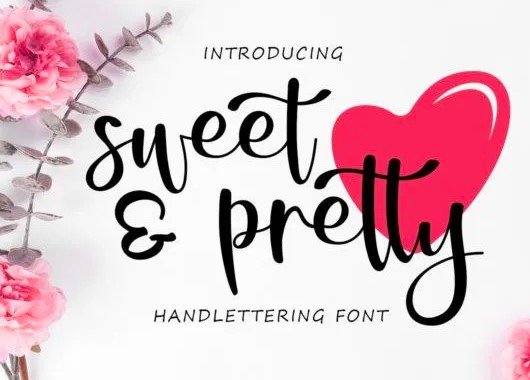
Introducing the ideal typeface: Sweet & Pretty Font. As its name implies, this font boasts wonderful features. It is an incredibly delightful, charming, and scripted typeface.
It has a romantic scripted typeface that can be used with copperplate font easily be utilized in all types of graphics as well as typographic work. You can download just by a single click on the button.